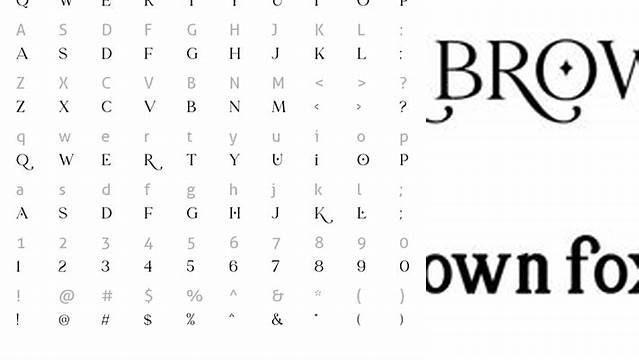
Free Cloudy Aurora Serif Fonts: Download & Use Guide
Hey guys! Are you looking to add a touch of elegance and sophistication to your design projects? Let's dive deep into the world of Cloudy Aurora Serif fonts. These fonts are like the secret sauce for designers who want their text to pop with a unique and stylish flair. Imagine a font that combines classic serif elements with a modern twist – that's Cloudy Aurora for you. In this comprehensive guide, we'll explore everything you need to know about these amazing fonts, from their characteristics and ideal uses to where you can find them for free. So, buckle up and let's get started!
What Makes Cloudy Aurora Serif Fonts Special?
Cloudy Aurora Serif fonts stand out for their distinctive blend of traditional and contemporary design elements. These fonts typically feature elegant serifs – those little feet or strokes at the ends of the letters – that give them a formal and polished appearance. However, what sets them apart is the modern twist, often seen in the unique shapes and proportions of the letterforms. This blend makes Cloudy Aurora fonts incredibly versatile, suitable for a wide range of applications from print to digital media. The beauty of a serif font lies in its ability to convey authority and sophistication, making it ideal for headings, titles, and body text in formal documents, books, and magazines. But Cloudy Aurora fonts take this a step further by incorporating modern design elements, ensuring they don't look dated or stuffy. Instead, they exude a contemporary elegance that captures attention and adds a touch of class to any project. Imagine you're designing a wedding invitation, a book cover, or a corporate brochure – Cloudy Aurora can instantly elevate the design, making it look more refined and professional. The subtle curves and sharp lines work together harmoniously, creating a visual rhythm that is pleasing to the eye. Moreover, the readability of these fonts is top-notch, ensuring that your message is not only stylish but also clear and easy to understand. This is crucial, especially for body text, where legibility is paramount. In short, Cloudy Aurora Serif fonts are special because they offer the perfect balance of classic charm and modern flair, making them a valuable asset in any designer's toolkit.
Key Characteristics of Cloudy Aurora Serif
When we talk about Cloudy Aurora Serif fonts, several key characteristics define their unique appeal. First and foremost, the serifs themselves are a crucial element. Unlike the blocky, uniform serifs of some traditional fonts, Cloudy Aurora often features serifs that are delicately tapered or subtly curved. This adds a touch of finesse and elegance to the letterforms. The contrast between thick and thin strokes is another defining feature. This contrast creates visual interest and makes the font more dynamic and engaging. Think about how the thick downstrokes of a letter like 'M' stand out against the thinner horizontal strokes – it's this variation that gives the font its distinctive personality. The letter spacing and kerning (the space between individual letters) are also carefully considered in Cloudy Aurora fonts. Proper spacing is essential for readability, ensuring that the letters don't look cramped or too far apart. Good kerning, in particular, contributes to the overall visual harmony of the font, making it appear polished and professional. Many Cloudy Aurora fonts also include stylistic alternates – different versions of certain letters that you can use to add even more personality to your text. For example, you might find an alternate version of the letter 'a' with a slightly different shape or a swash version of the letter 'z' for a more decorative touch. These alternates allow you to customize the font and create unique typographic effects. Furthermore, the overall x-height (the height of the lowercase letters) plays a significant role in the font's legibility and appearance. A taller x-height generally makes the font easier to read, especially in smaller sizes. Cloudy Aurora fonts often strike a balance between x-height and ascender/descender length (the parts of the letters that extend above and below the main body), resulting in a font that is both readable and aesthetically pleasing. So, when you're choosing a Cloudy Aurora font, pay attention to these key characteristics – they're what make the font so special and versatile.
Ideal Uses for Cloudy Aurora Serif Fonts
So, where can you use Cloudy Aurora Serif fonts to their full potential? Well, the versatility of these fonts means they're perfect for a wide array of projects. Think about branding and logo design. A Cloudy Aurora font can give a brand a sense of sophistication and reliability, making it an excellent choice for companies that want to project a classic yet modern image. Imagine a law firm, a high-end boutique, or a luxury hotel – a Cloudy Aurora font could be just the ticket for their visual identity. In the world of publishing, these fonts are a natural fit for books, magazines, and newspapers. The elegant serifs make them highly readable for long blocks of text, while the modern touches ensure they don't look old-fashioned. Whether you're designing the cover of a novel or the layout of a magazine article, Cloudy Aurora fonts can help create a polished and professional look. For web design, Cloudy Aurora fonts can add a touch of class to websites and blogs. While serif fonts were once considered less suitable for the web due to screen resolution limitations, modern font rendering technologies have made them much more viable. A Cloudy Aurora font can be used for headings, body text, or even navigational elements, creating a cohesive and stylish online presence. Think about an online magazine, a personal blog, or a corporate website – these fonts can elevate the design and make it more engaging for visitors. When it comes to print materials, such as brochures, flyers, and invitations, Cloudy Aurora fonts really shine. They can add a sense of elegance and formality to invitations, making them perfect for weddings, galas, and other special events. For brochures and flyers, these fonts can help convey a sense of professionalism and credibility, making them ideal for businesses and organizations that want to make a strong impression. In short, the ideal uses for Cloudy Aurora Serif fonts are incredibly diverse, spanning branding, publishing, web design, and print materials. Their ability to blend classic and modern elements makes them a valuable asset for any designer looking to add a touch of sophistication to their work.